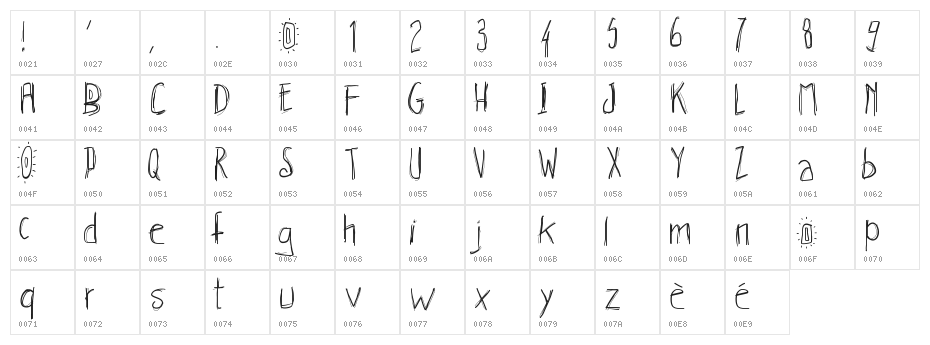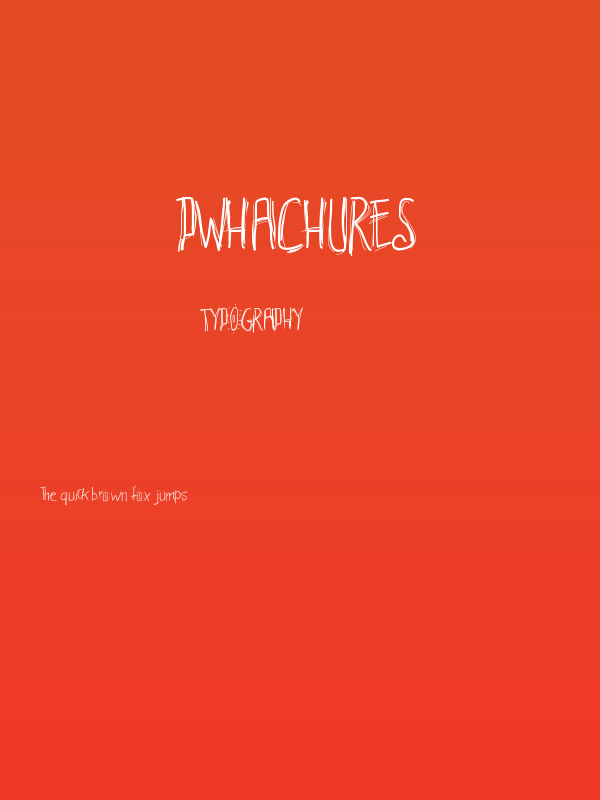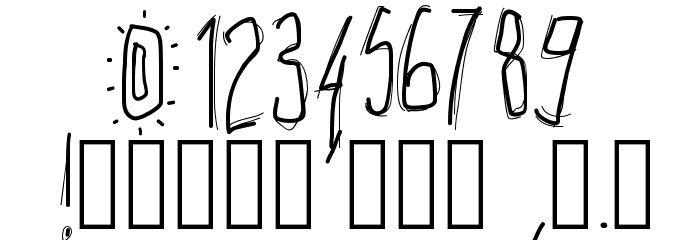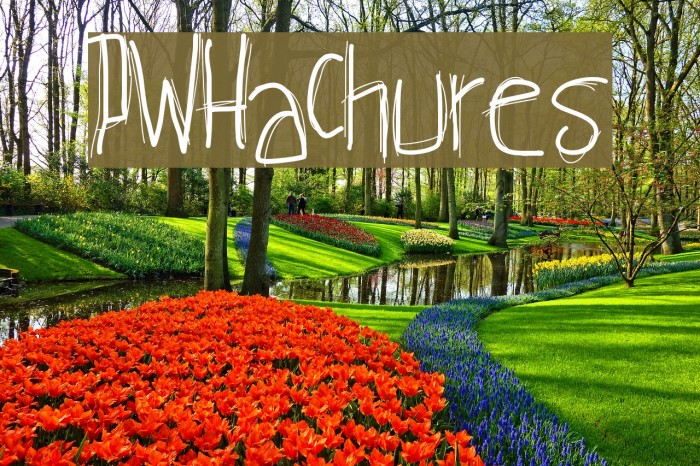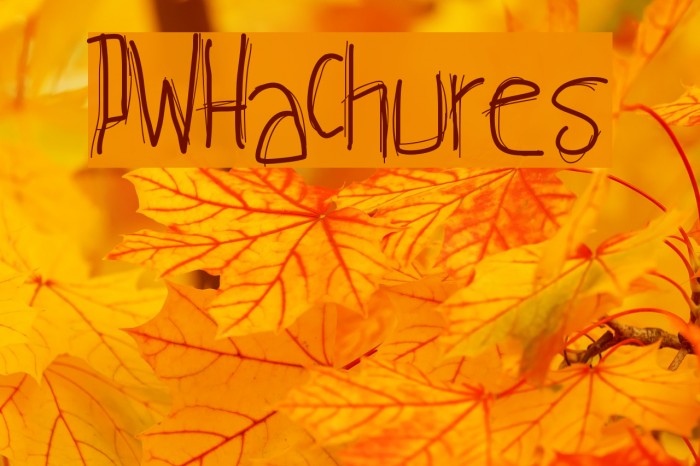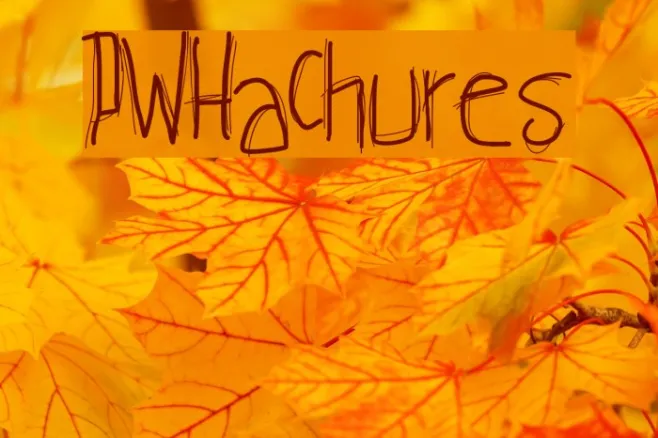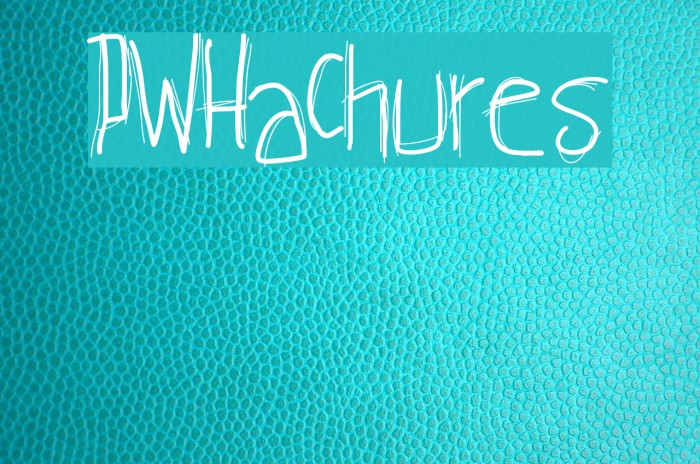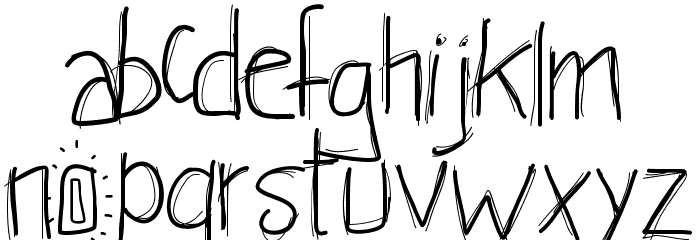
PWHachures Font
PWHachures Description
This font features a hand-drawn, sketch-like appearance with uneven strokes and a playful, artistic vibe. The characters are tall and narrow, with a slightly irregular baseline that adds to the casual, whimsical feel. The uppercase and lowercase letters maintain a consistent style, with elongated verticals and varied line thickness that give a sense of movement and energy. Numbers and special characters follow the same design principles, ensuring a cohesive look throughout. The font's unique style makes it stand out, offering a creative and informal touch to any design.